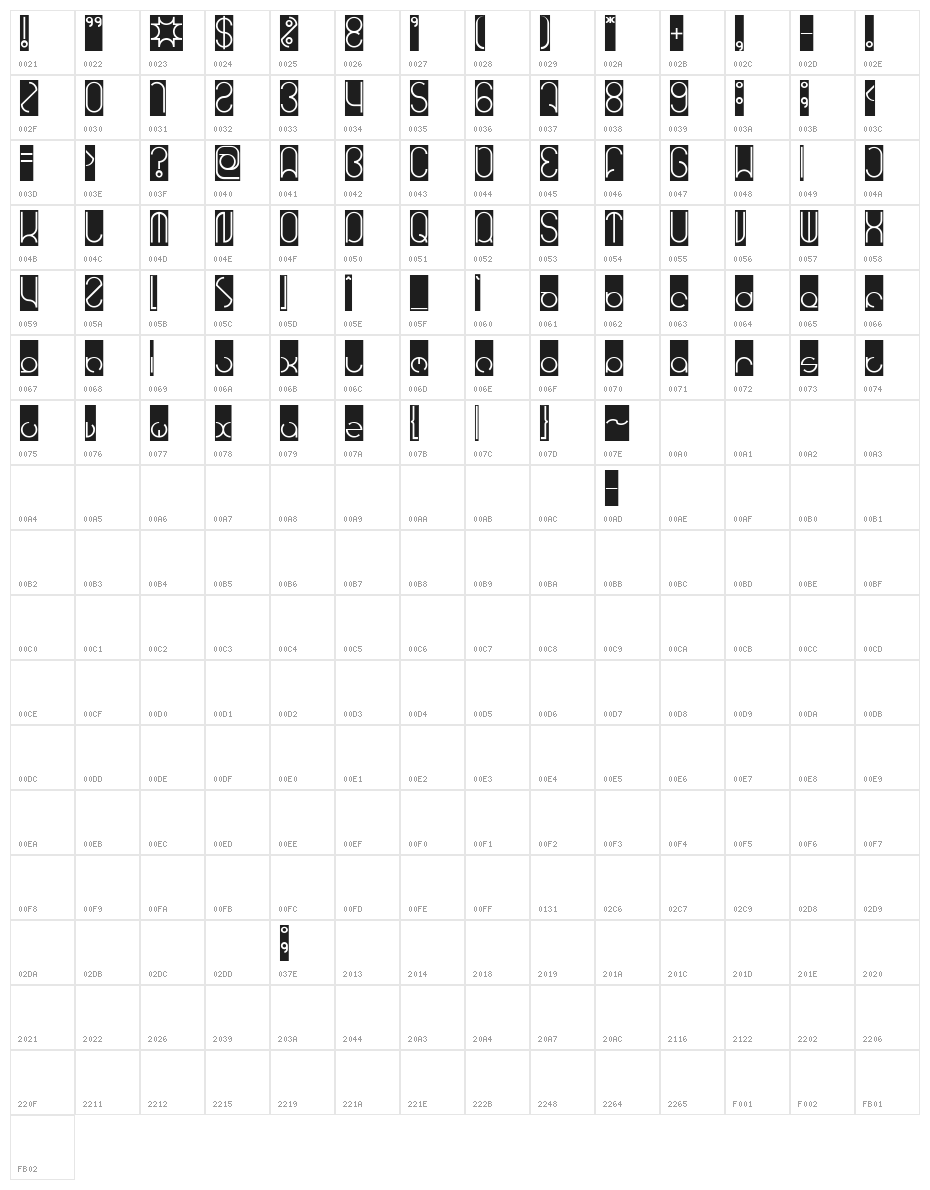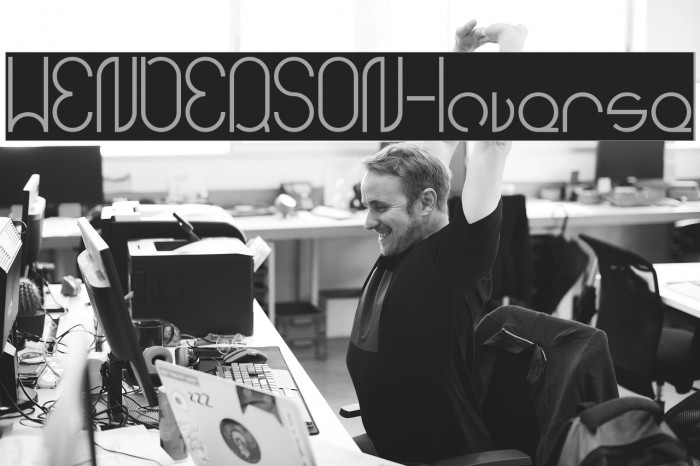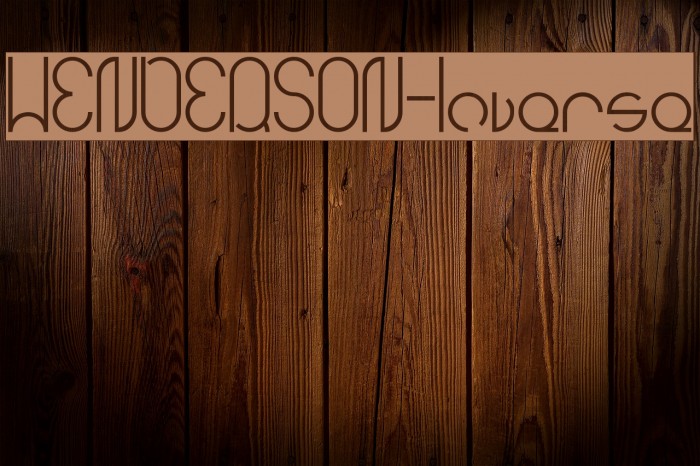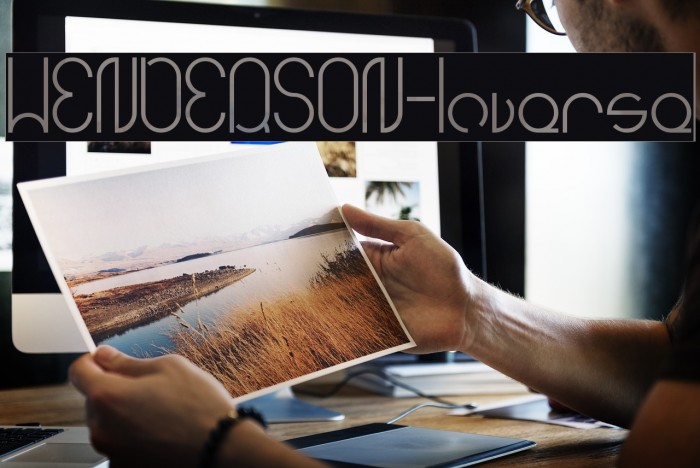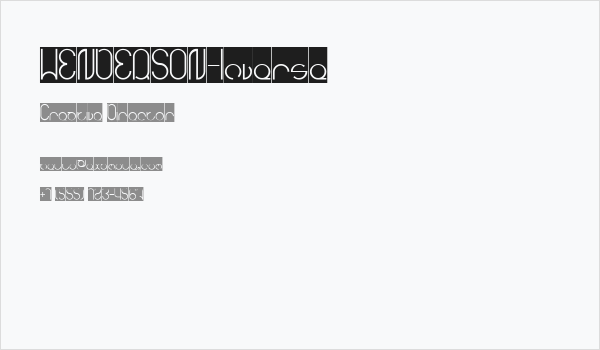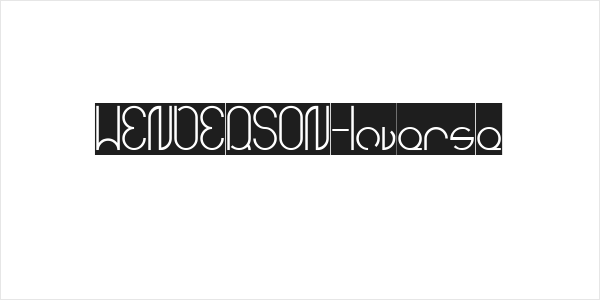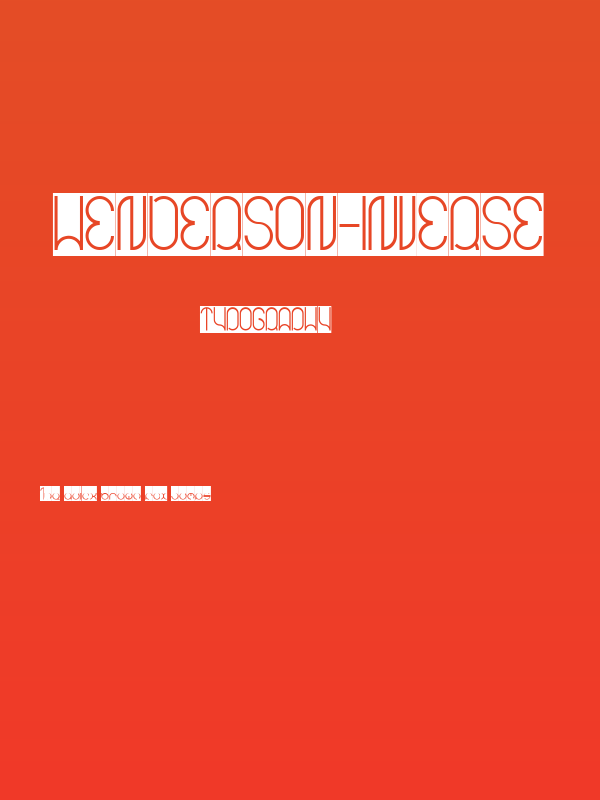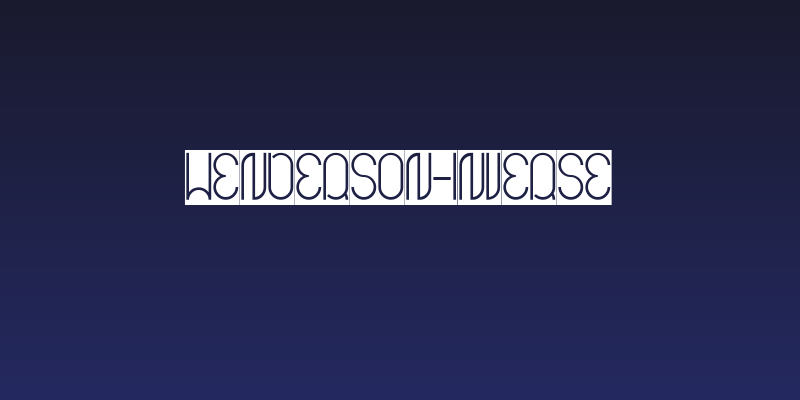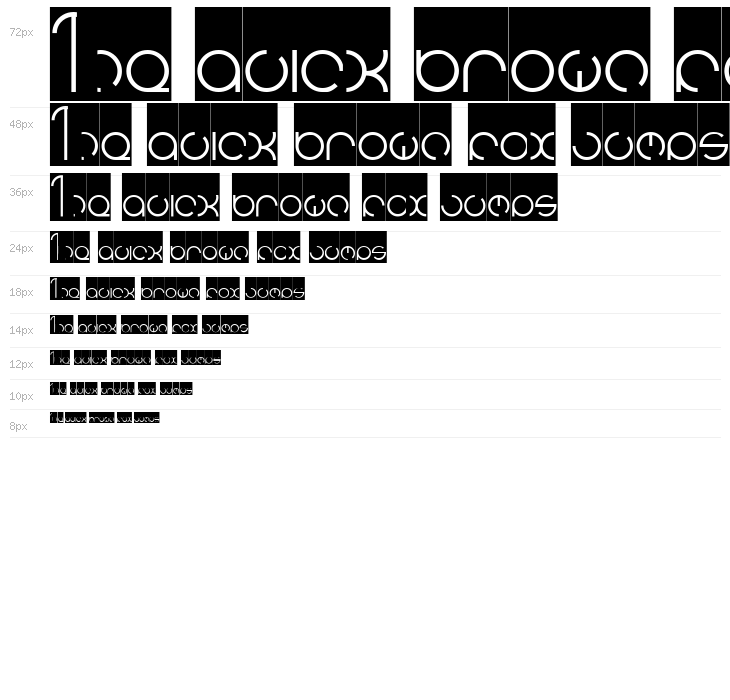
HENDERSON-Inverse Font
HENDERSON-Inverse Description
This font features a unique and modern design with a futuristic flair. The characters are composed of clean, geometric lines and curves, creating a sense of symmetry and balance. The uppercase letters have a distinct architectural feel, with elongated verticals and rounded edges. The lowercase letters maintain the same geometric style, offering a cohesive look across the typeface. Numbers and special characters are crafted with the same attention to detail, ensuring consistency throughout. The overall appearance is sleek and stylish, making it suitable for contemporary design projects.
| Overall Style | Futuristic, Geometric |
| Proposed Projects | Ideal for branding, logos, posters, and any project requiring a modern and stylish aesthetic. |